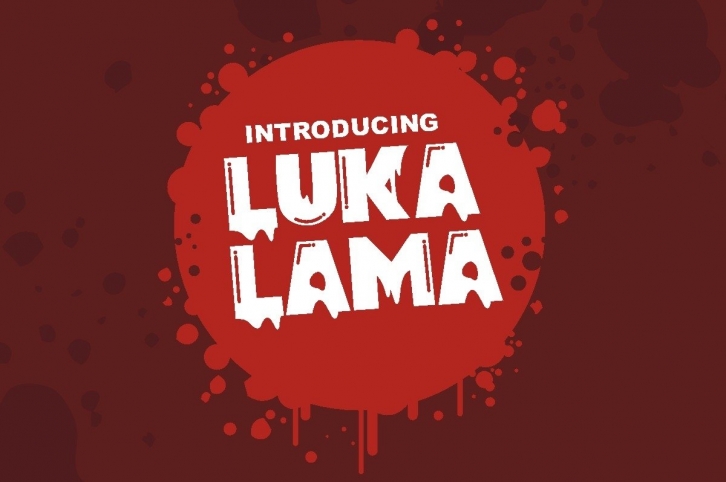
Lukalama - Dripping Blood fonts Download
Lukalama is a beautiful font that was designed by Vableworks. It's a great choice for designers and creatives who need such a font. It was released on September 24, 2020 and the file size is 11.47 MB. Lukalama may give a more youthful, expressive and casual look to your project. It is a very beautiful, refined, elegant, and high-quality font.